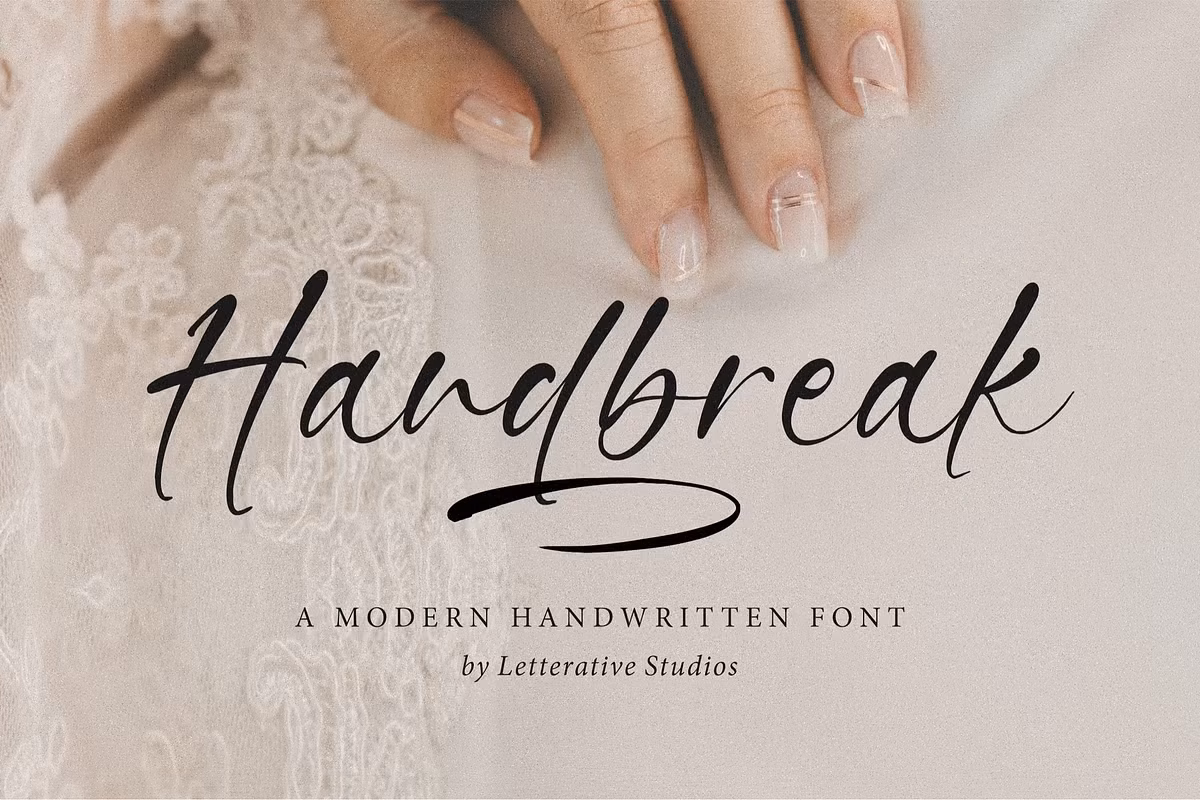
Add a personal and stylish touch to your designs with Handbreak - Modern Handwritten Font Free Download. This sleek and modern handwritten font features fluid, natural strokes that give your typography an organic and contemporary feel, making it perfect for logos, invitations, social media posts, branding, and more.
Handbreak combines the charm of handwritten letterforms with a clean, modern aesthetic, offering a perfect balance of elegance and ease. It includes uppercase and lowercase letters, numerals, punctuation, and multilingual support, providing you with the flexibility to experiment with various design concepts.